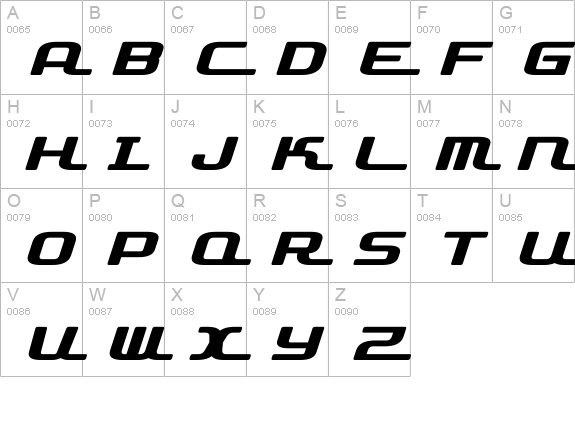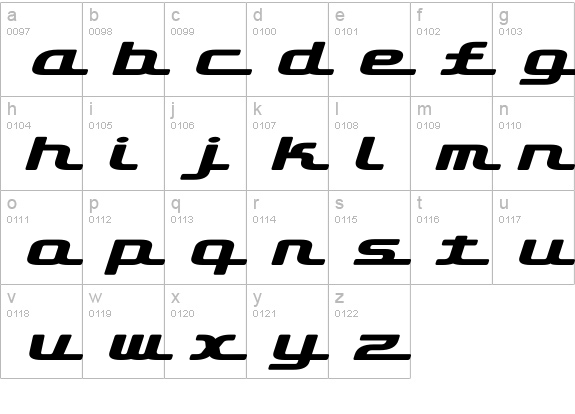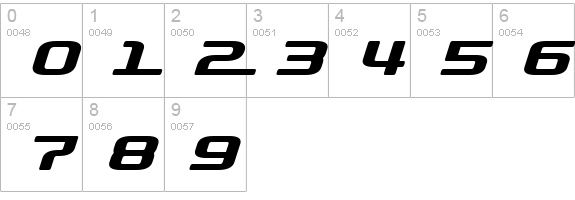
D3 Roadsterism Wide Italic Font Details
D3 Roadsterism Wide Italic is a distinctive, extended-width, italic variant in the D3 typeface family \xE2\x80\x94 well suited to design and typography projects.
Introducing the D3 Roadsterism Wide Italic font, a stunning typeface that effortlessly combines elegance and modernity. Its sleek and bold letterforms make a powerful statement, capturing attention with their distinctive slant and wide proportions. Designed to add a touch of sophistication to any design project, D3 Roadsterism Wide Italic exudes confidence and style. Its italicized nature adds a dynamic and energetic edge, perfect for conveying a sense of movement and excitement. Whether you're designing a logo, a poster, or even a website, this font is sure to make a lasting impression. Not only does D3 Roadsterism Wide Italic possess visual appeal, but it also offers convenience and accessibility. It is freely available to download at FontsMarket.com, making it easily accessible for designers and creatives alike. Now, you can effortlessly elevate your designs with this eye-catching and versatile typeface. With its clean lines and attention to detail, D3 Roadsterism Wide Italic is a font that commands attention and communicates a sense of professionalism. Its wide and italicized characters give your text a sense of movement, while still maintaining legibility and clarity. So, whether you're looking to add a touch of sophistication to your branding, or simply want to make a statement with your typography, D3 Roadsterism Wide Italic is the perfect choice. Download it for free at FontsMarket.com and let your designs take on a new level of elegance and impact.